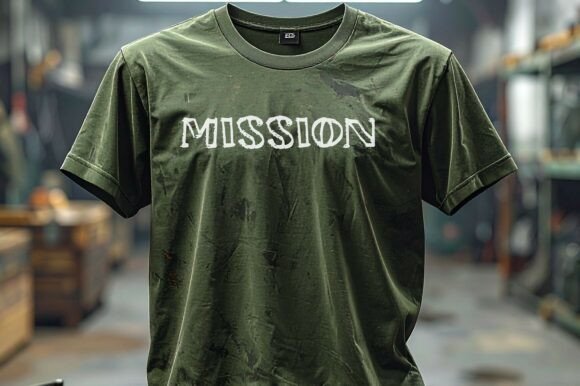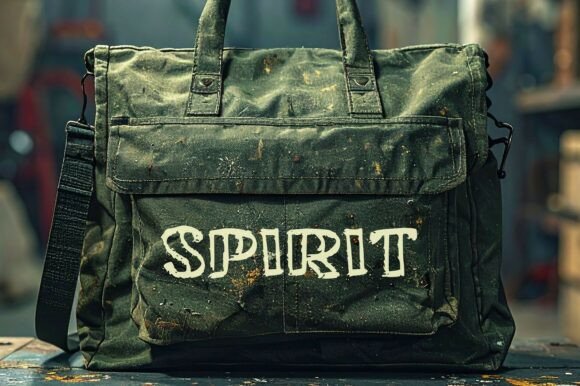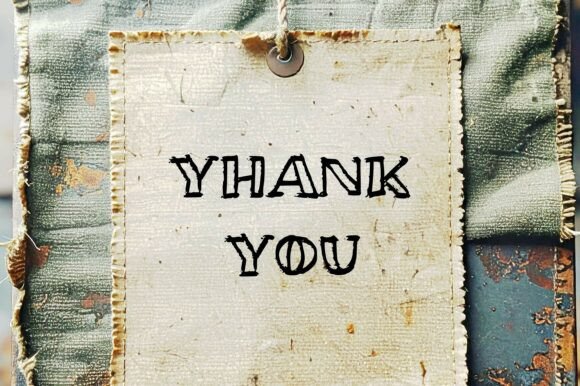
Baret Font: A Powerful and Impactful Stencil-Style Typeface
The Baret Font is a distinctive and bold stencil-style sans-serif typeface that exudes industrial strength and military precision. Its unique aesthetic, characterized by broken or ‘cut-out’ letterforms, makes it an excellent choice for designers and crafters looking to add a rugged and utilitarian touch to their projects.
What Makes Baret Font Stand Out?
The font displayed for ‘BARET’ is a powerful and impactful stencil-style sans-serif typeface that immediately evokes a sense of industrial strength and military precision. What makes it good and different is its distinctive broken or ‘cut-out’ letterforms, which are characteristic of stenciling techniques used for labeling crates, equipment, or signage where durability and clear identification are paramount.
A Rugged and Utilitarian Aesthetic
This unique aesthetic gives Baret Font a rugged, utilitarian, and no-nonsense feel. The sharp, angular cuts create strong visual interest while maintaining excellent legibility, particularly in all-caps. This font is exceptionally well-suited for projects requiring a bold, authoritative, or tactical look.
Ideal Applications for Baret Font
Baret Font would be an ideal choice for branding related to security, outdoor gear, adventure, workwear, or any design that aims to convey resilience, functionality, and a commanding presence, making a clear and uncompromising statement. Some potential applications for Baret Font include:
- Logo design for outdoor gear and equipment companies
- Branding for security and law enforcement agencies
- Packaging design for industrial or technical products
- Typography for adventure and travel companies
- Workwear and apparel branding
Design and Crafting Opportunities
For designers and crafters, Baret Font offers a wealth of creative possibilities. Its bold and impactful aesthetic makes it an excellent choice for a wide range of projects, from digital designs to handmade crafts. Some potential design and crafting opportunities include:
- Custom sign-making and lettering projects
- Handmade card and gift tag design
- DIY craft projects, such as woodworking or metalworking
- Digital design projects, such as branding and advertising
- Stationery and paper craft design
Tips for Using Baret Font Effectively
To get the most out of Baret Font, here are a few tips to keep in mind:
- Use it sparingly: Baret Font is a bold and impactful typeface, so it’s best used sparingly to add emphasis and visual interest to your designs.
- Pair it with contrasting fonts: Baret Font pairs well with clean and simple fonts, such as sans-serif or serif typefaces.
- Experiment with colors: Baret Font looks great in a range of colors, from bold and bright to muted and earthy.
- Consider the context: Baret Font is a utilitarian typeface, so it’s best used in contexts where a rugged and industrial aesthetic is desired.
In conclusion, Baret Font is a powerful and impactful stencil-style typeface that offers a unique and rugged aesthetic. Its bold and authoritative look makes it an excellent choice for designers and crafters looking to add a utilitarian touch to their projects. With its wide range of applications and design possibilities, Baret Font is a versatile and valuable addition to any design or crafting toolkit.